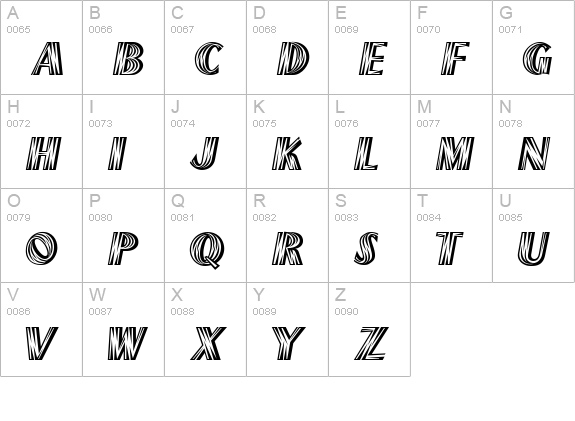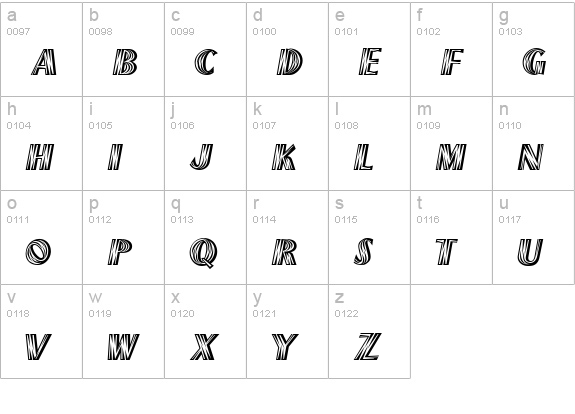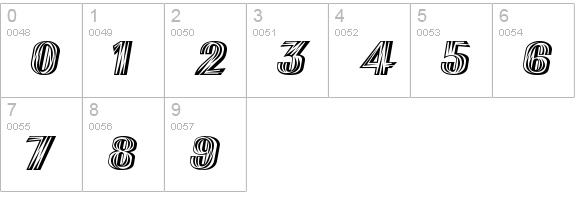
wagner Font Details
Wagner Font is a versatile and elegant typeface that exudes sophistication and modernity. With its clean lines and sharp edges, this font is perfect for a wide range of design projects, from branding to editorial layouts. The unique character of Wagner Font adds a touch of class to any design, making it stand out from the crowd. The best part is that Wagner Font is completely free to download at FontsMarket.com. This means you can easily access this high-quality font without any cost, allowing you to enhance your projects without breaking the bank. Don't miss out on the opportunity to elevate your designs with the timeless appeal of Wagner Font, available for free download now at FontsMarket.com.